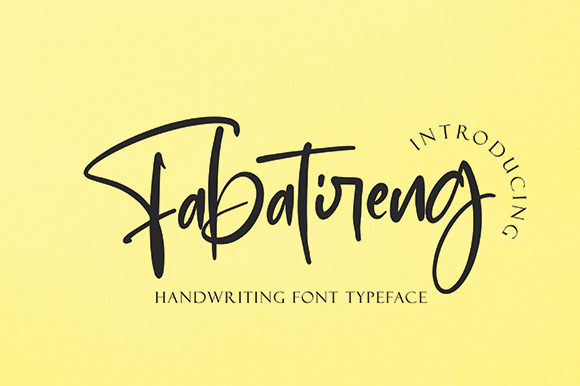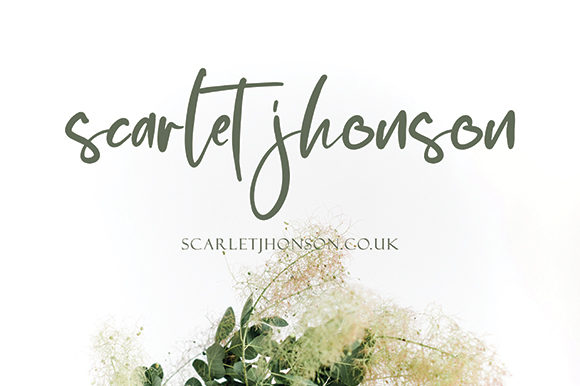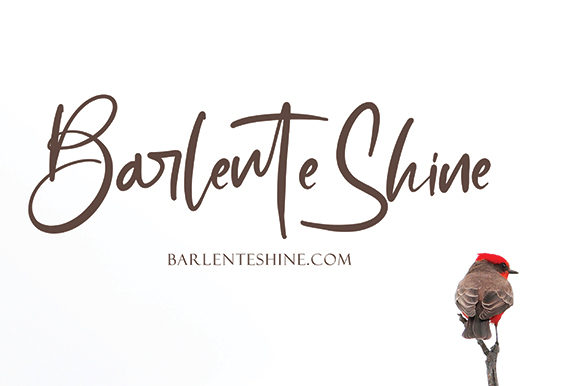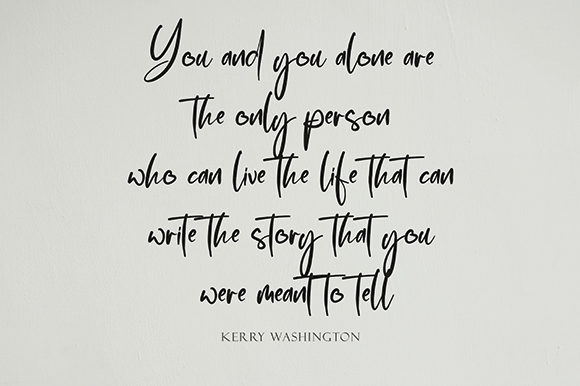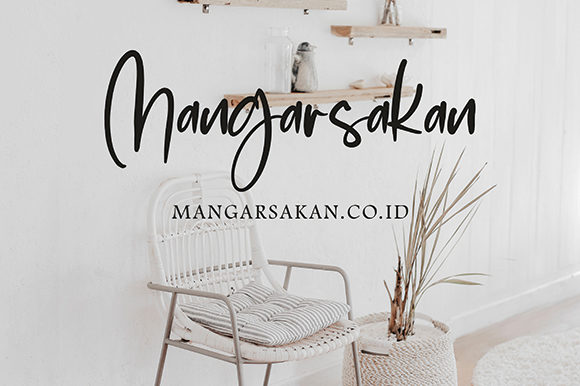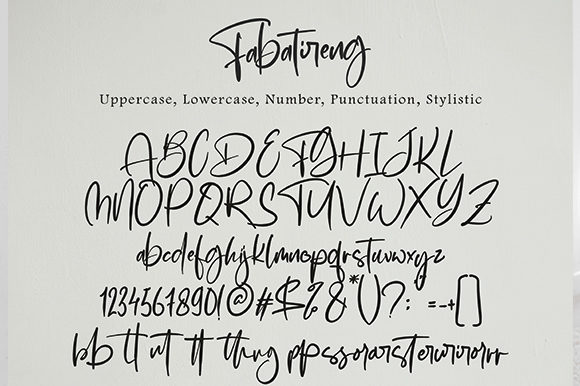
Fabatireng Font
About Fabatireng Font
Fabatireng is a modern and clean handwritten font. Its versatility and neat vibe will brighten up each of your designs. Have fun with this beautiful font and explore its endless variations.